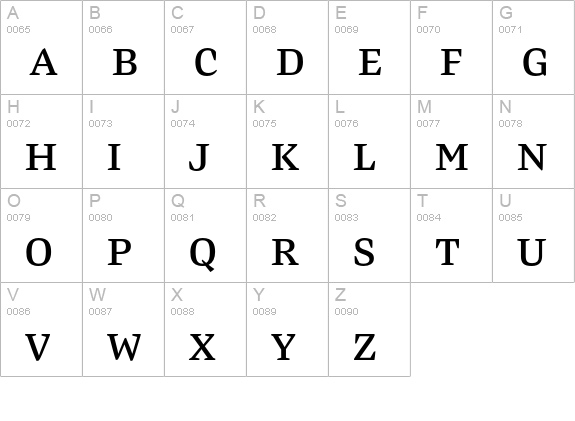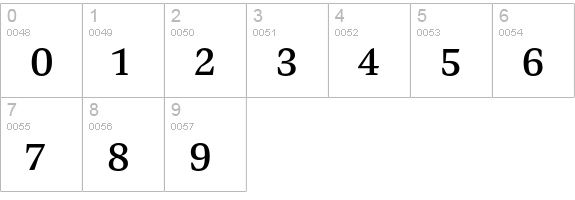
PretoSerifOTStd Regular 3 is the standard, neutral variant in the PretoSerifOTStd typeface family \xE2\x80\x94 well suited to general body text, paragraphs, and standard typographic work.
PretoSerifOTStd Regular 3 font is a versatile and elegant typeface that exudes sophistication and style. Its classic serifs and clean lines make it perfect for a wide range of design projects, from elegant invitations to professional business documents. This font is available for free download at FontsMarket.com, making it easily accessible for designers and creatives looking to add a touch of timeless elegance to their work. With its timeless appeal and professional look, PretoSerifOTStd Regular 3 font is sure to elevate any design project to the next level.